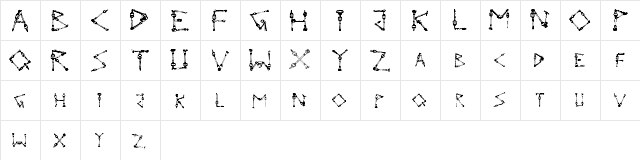
Driveshaft Regular Font Preview
Driveshaft Regular
Design Context for Driveshaft Typeface
Driveshaft is a composed and adaptable typeface that performs quietly and consistently across a wide range of design contexts.